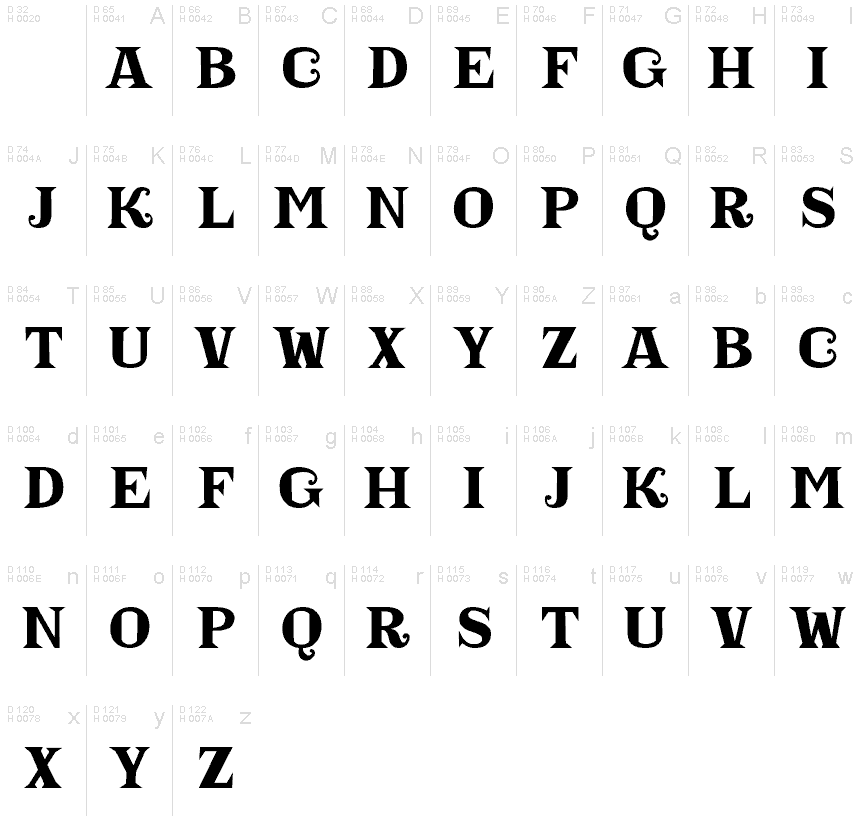
Greeks From The Paradise Regular
Greeks From The Paradise font by Vladimir Nikolic is a free display font with incredibly unique characters that cannot escape attention. Each shape is decorated ornately in a matter reminiscent of the Greek style, hence the appropriate name of this remarkable font. With all its serifs and finishes, it’s vivid enough to be noticed instantly yet bold enough to deliver information appropriately.
Possible uses include art-related magazines, fancy book covers, attractive package designs, stylish branding ideas for famous brands, outstanding posters and flyers among others. This geometric typeface is also ideal for various decorative purposes such as cards and invitations or even home decor items like cups!